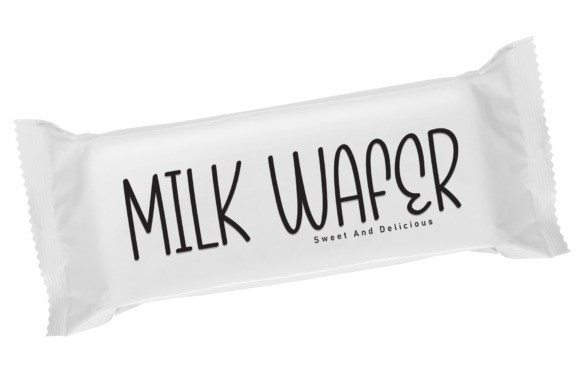
Beautiful Lake Font
Beautiful Lake Font is a sweet and friendly handwritten display font. Cute and fun, this font is ideal for writing wedding invitations, cards, or any other design that might need a fun touch!